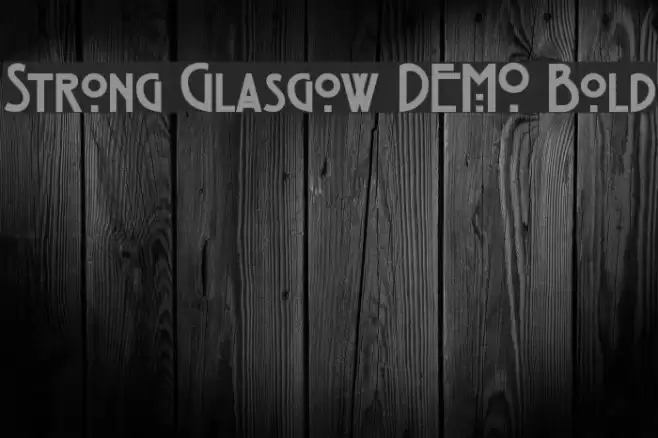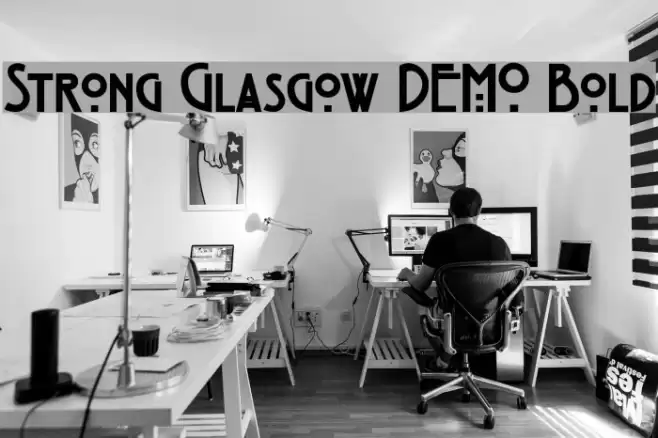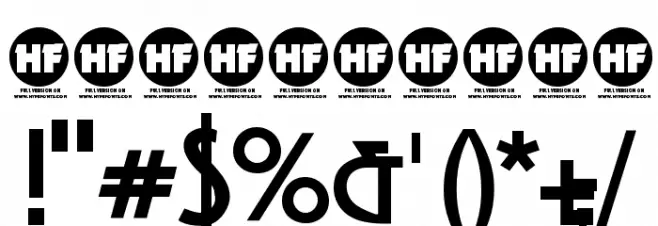
Strong Glasgow DEMO Bold Font
Strong Glasgow DEMO Bold Description
This font features a bold and geometric design, characterized by strong, clean lines and a modern aesthetic. The uppercase letters are particularly striking, with a uniform height and width that create a cohesive look. The lowercase letters maintain the same boldness, ensuring readability and impact. The numerals are consistent with the overall style, offering a clear and straightforward appearance. Special characters are designed with the same attention to detail, making them suitable for a variety of uses. The font's boldness and geometric style make it ideal for headlines, logos, and other design projects that require a strong visual presence.
A bold, geometric font with strong lines and a modern aesthetic from Art Nouveau fonts.